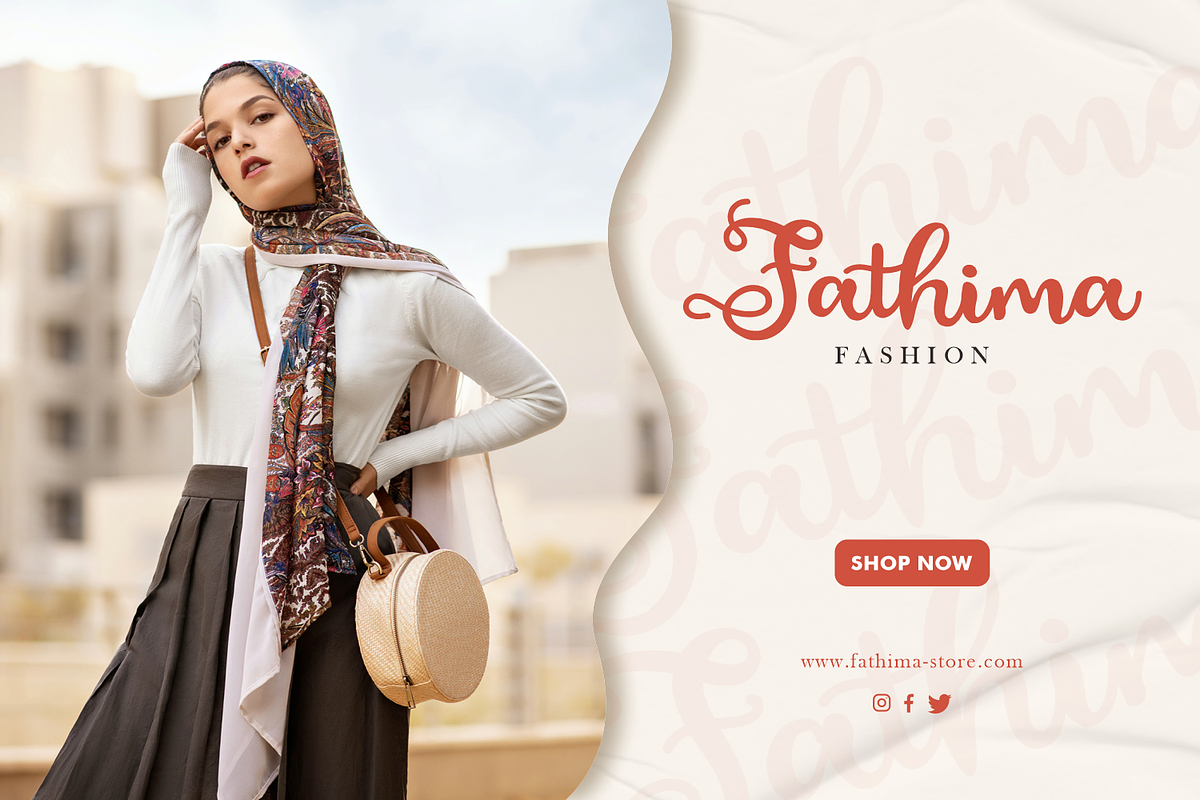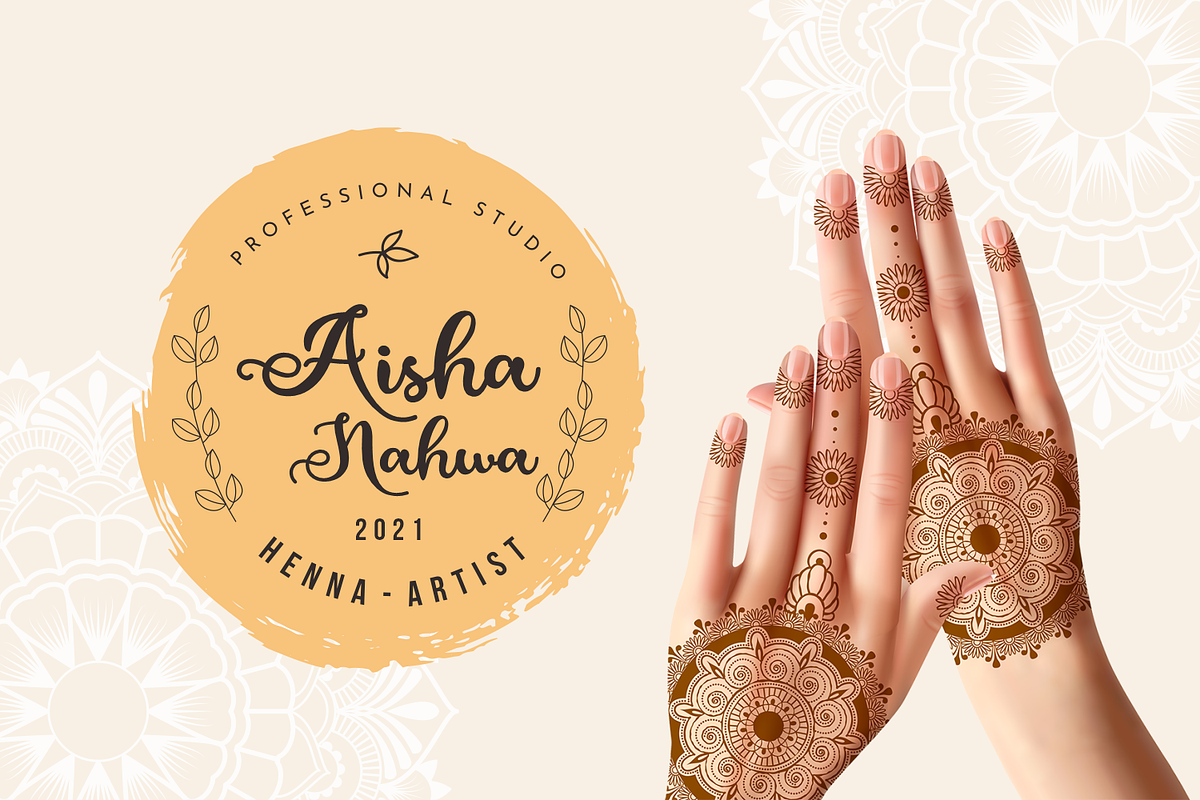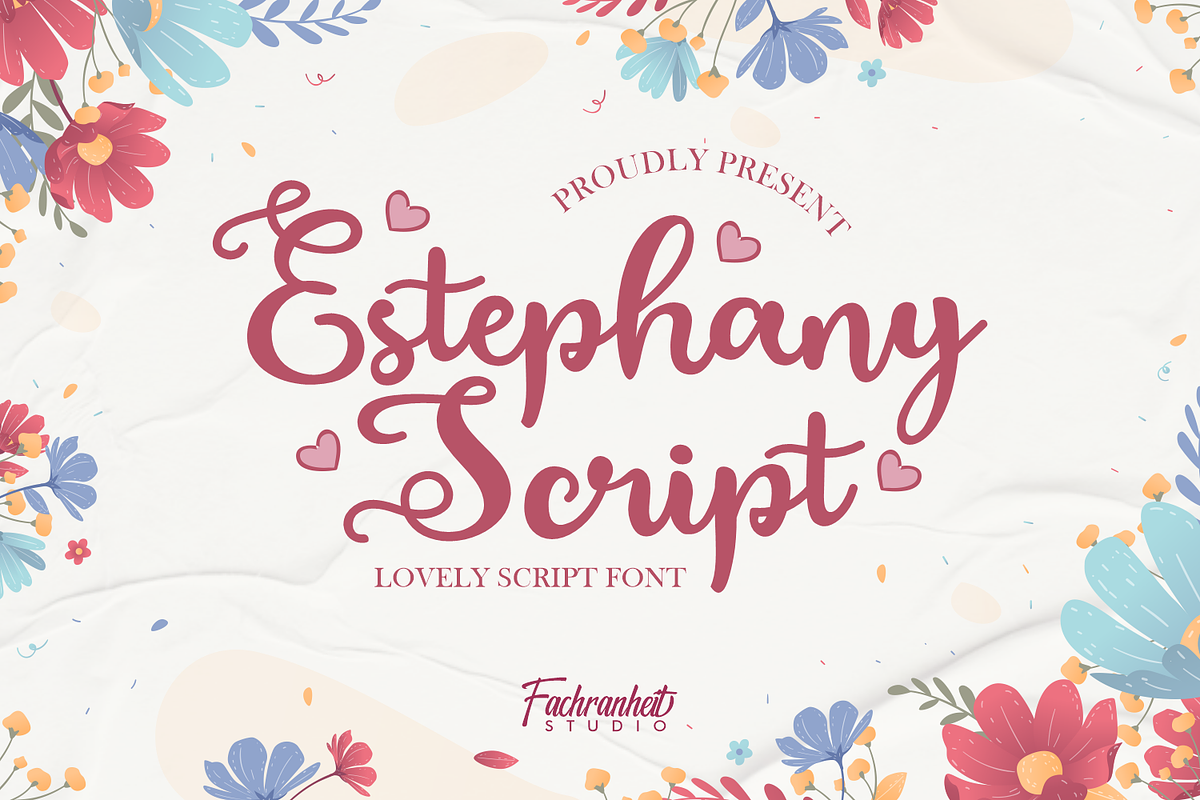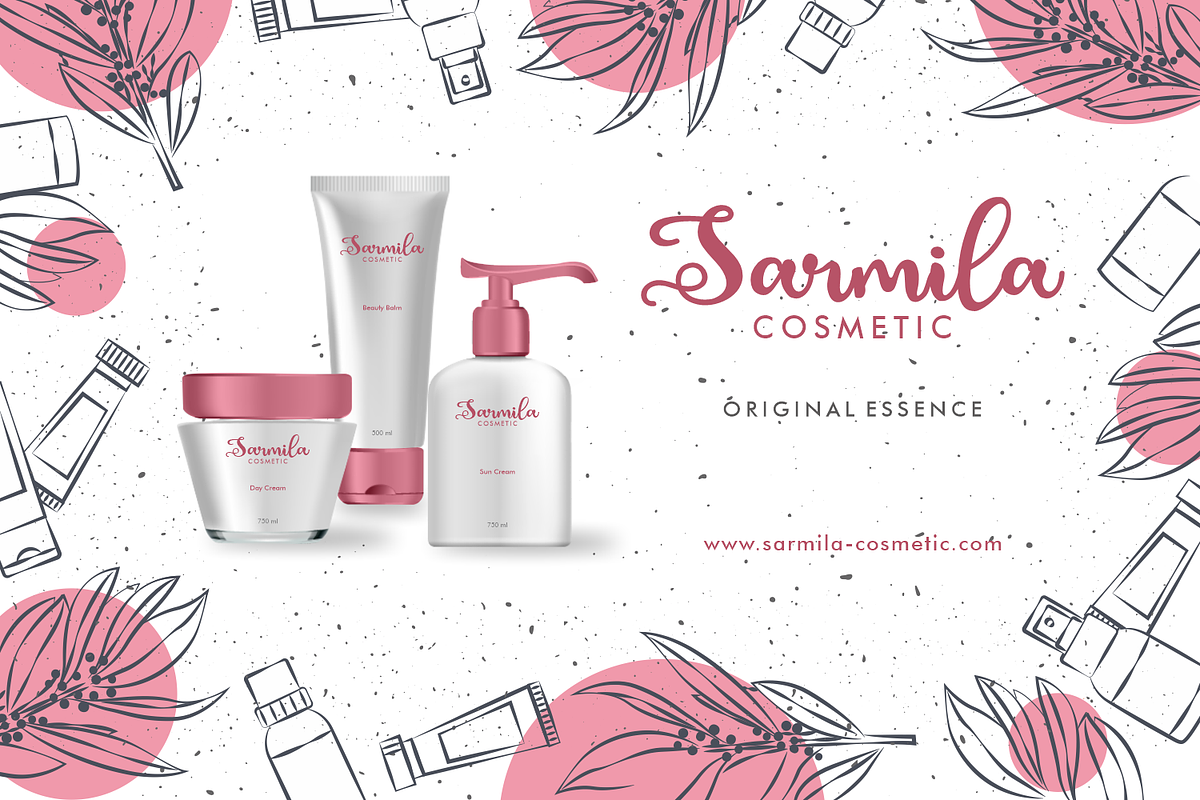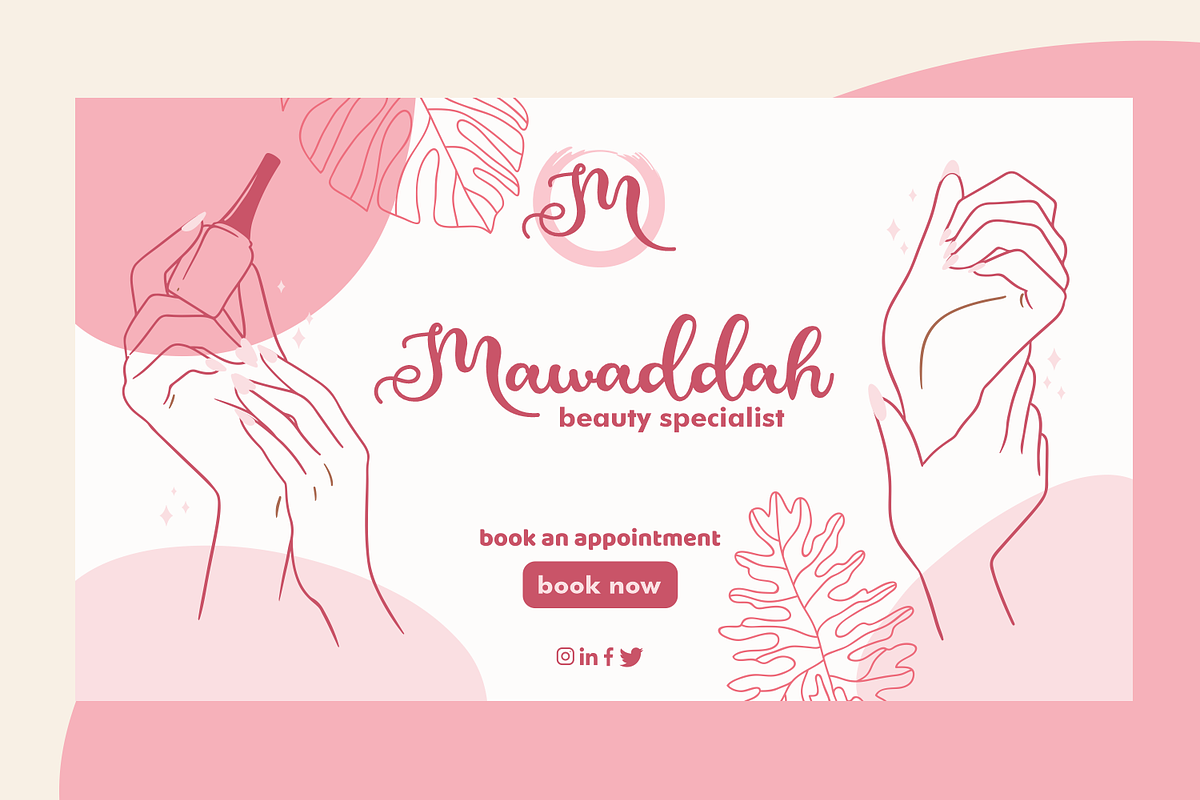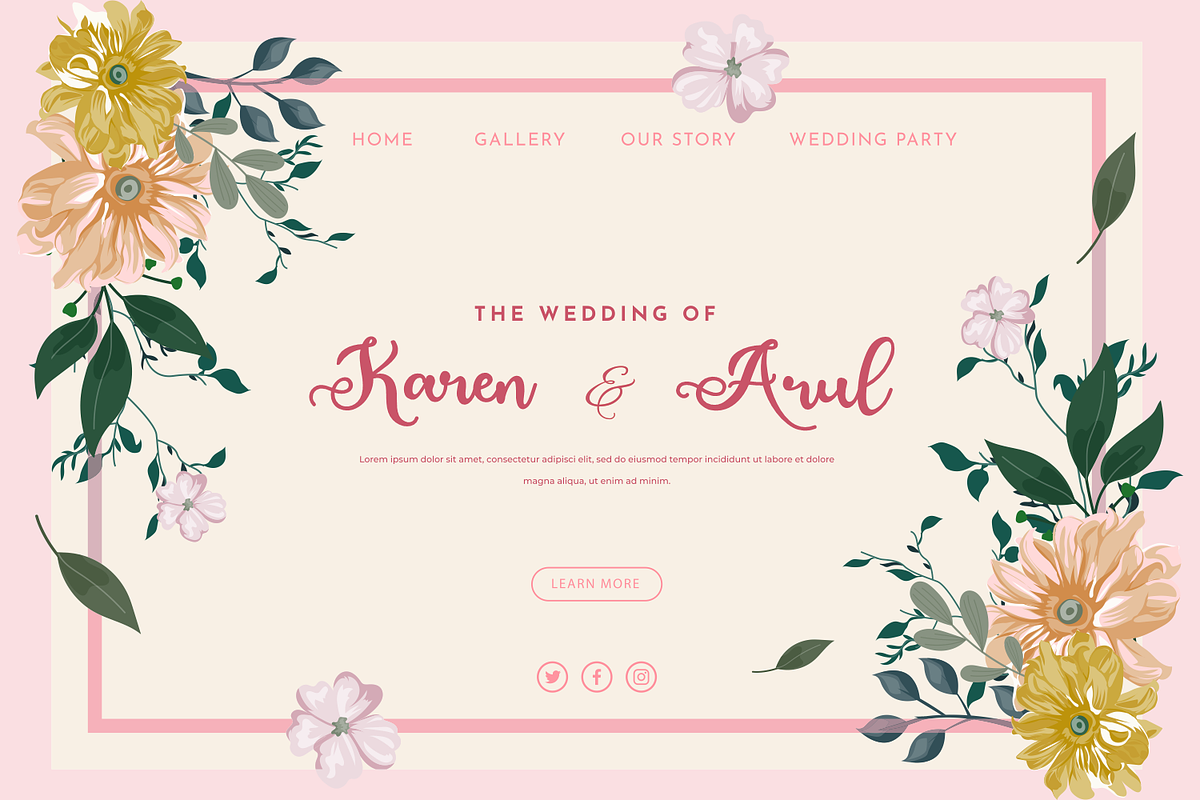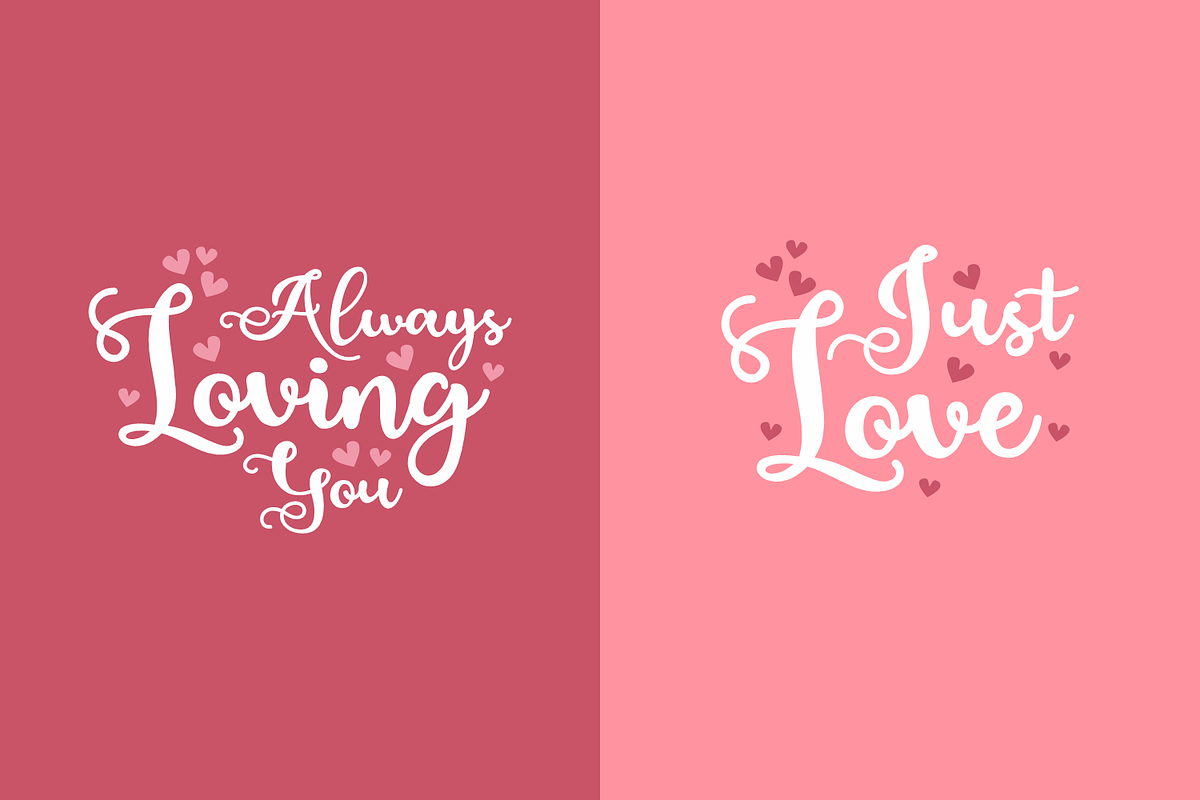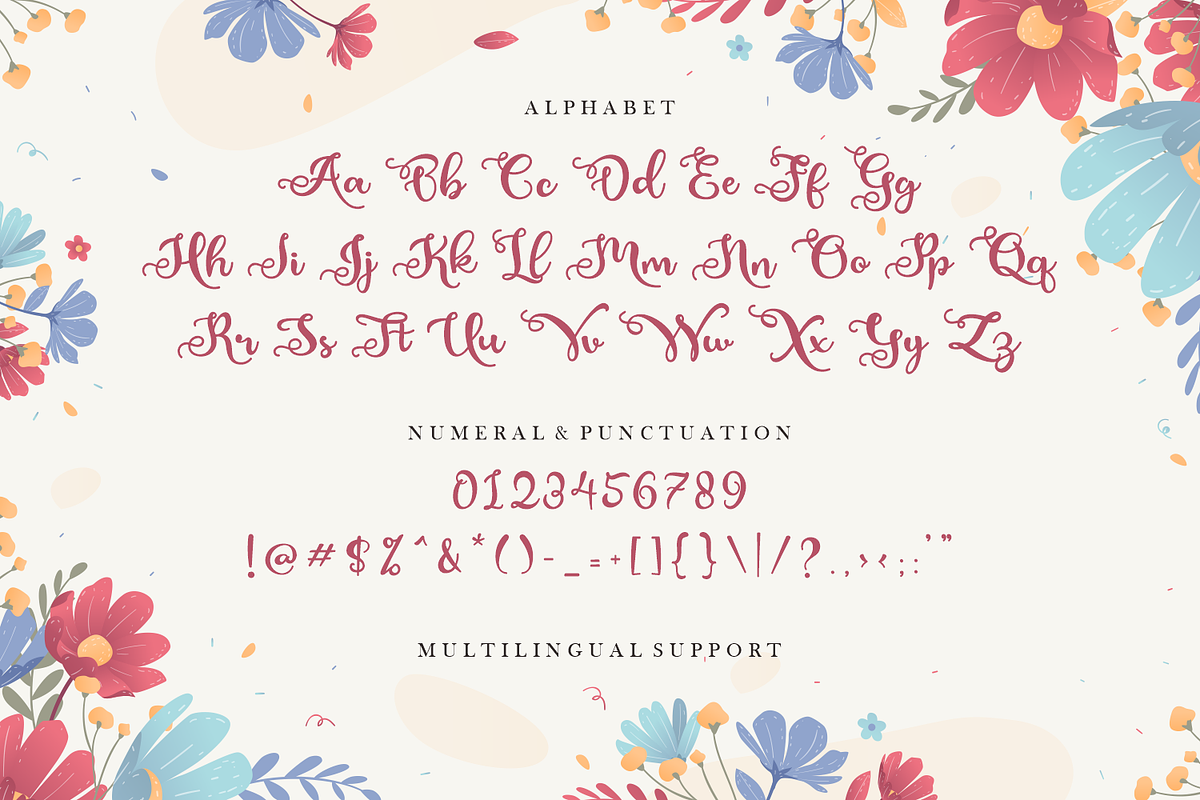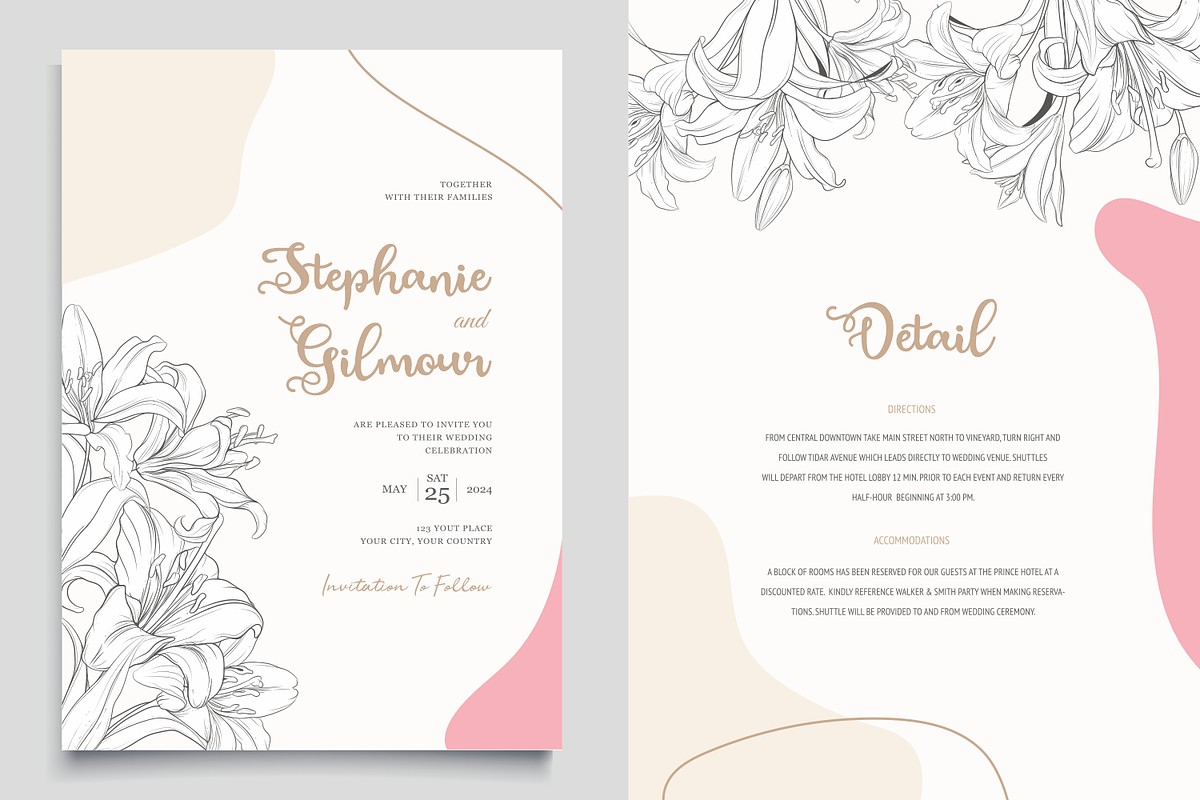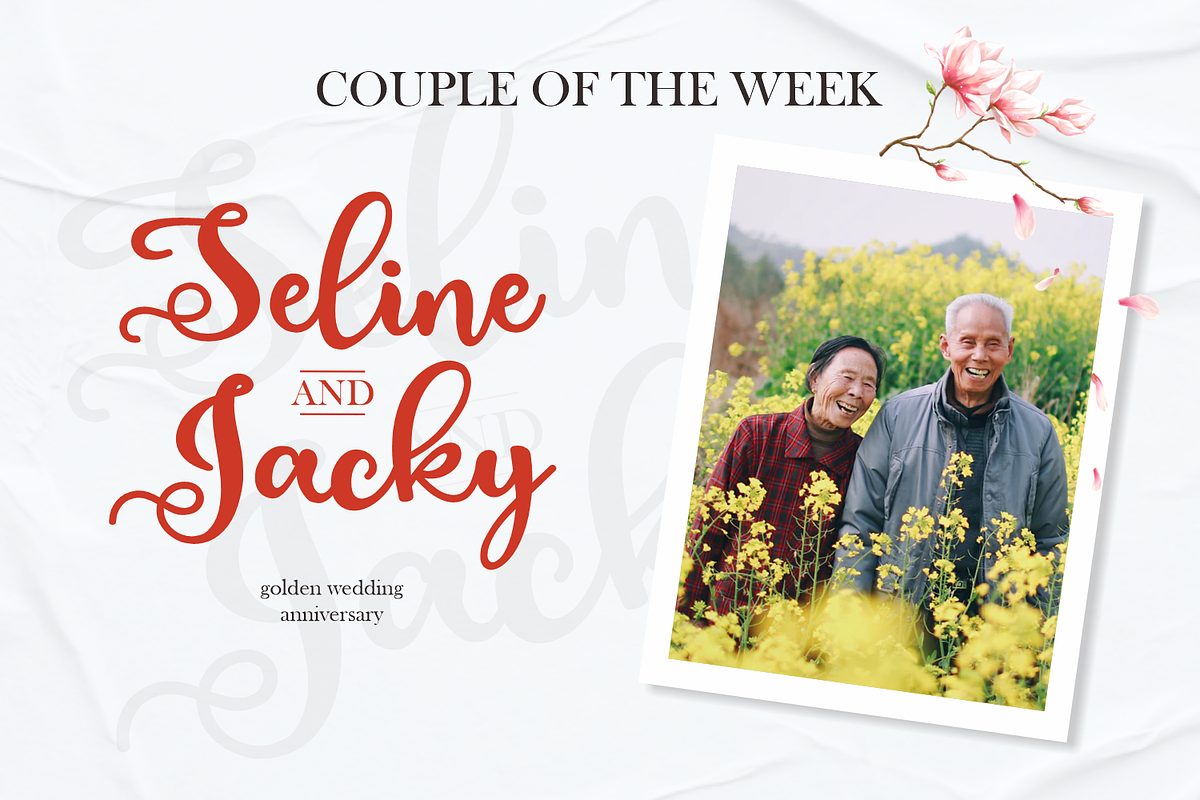
Estephany Script
Estephany Script is a Lovely Script font
The simple characteristics of Estephany Script make it very suitable for various purposes such as quotes, wedding card, flyers, logos, logotype, labels, branding etc.